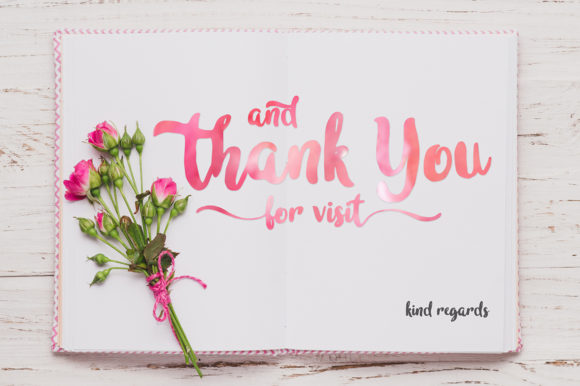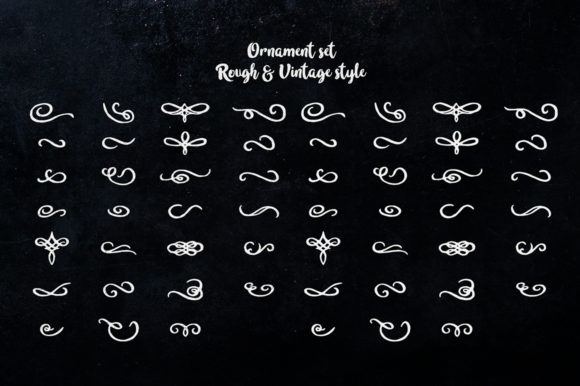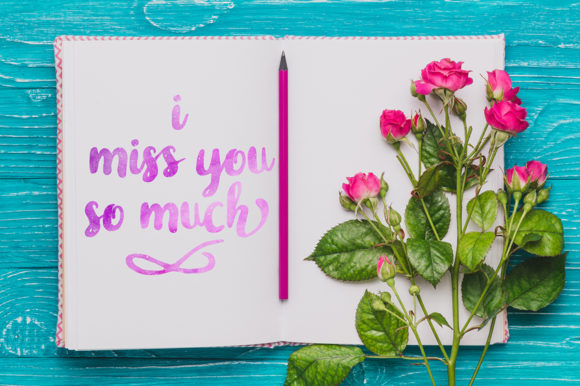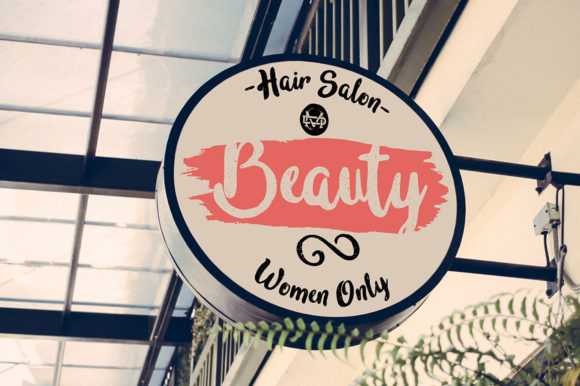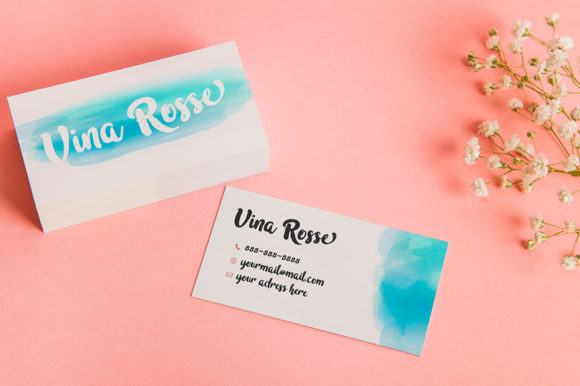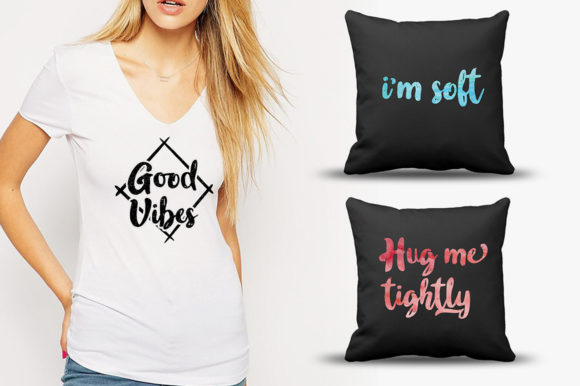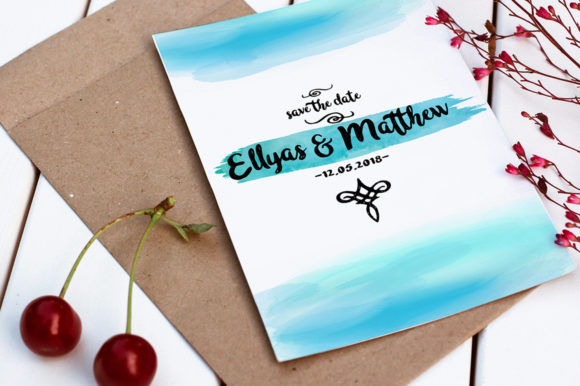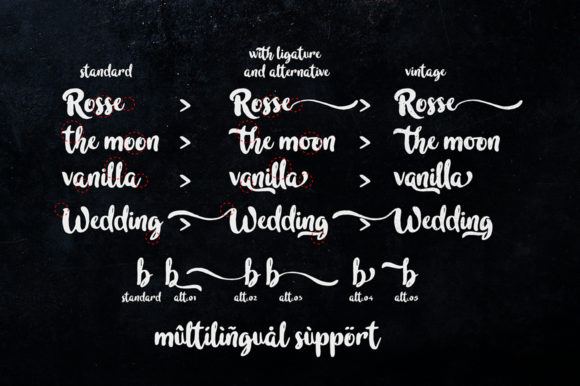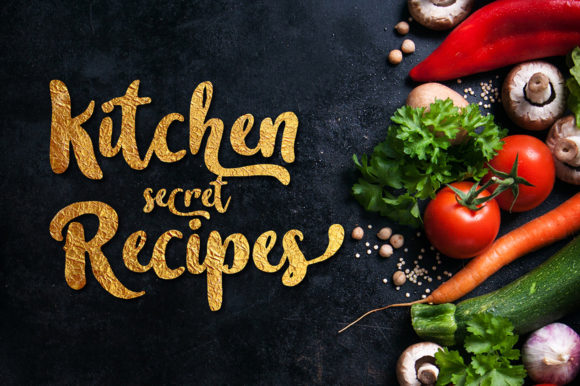
In Blossom Font
About In Blossom Font
In Blossom sounds like a beautiful and elegant handwritten font that exudes a flowing and timeless charm. Its distinct style is sure to captivate your creative spirit, and its versatility allows it to shine in various projects. Let’s explore some exciting ways to use In Blossom and create spectacular designs:
1. Wedding Invitations: Design stunning and romantic wedding invitations using In Blossom’s elegant touch, setting the tone for a dreamy celebration.
2. Greeting Cards: Create heartwarming greeting cards for various occasions, expressing sentiments with a touch of sophistication.
3. Brand Logos: Utilize In Blossom to design elegant and memorable logos that evoke a sense of timeless beauty for businesses and brands.
4. Art Prints: Create exquisite art prints featuring inspiring quotes or delicate floral illustrations using In Blossom’s flowing lettering.
5. Book Covers: Apply In Blossom’s elegant style on book covers, adding a touch of sophistication to the literary world.
6. Inspirational Quotes: Design captivating graphics with In Blossom to showcase motivational and uplifting quotes on social media or home decor.
7. Product Packaging: Use In Blossom’s elegant touch to design product labels and packaging, leaving a lasting impression on customers.
8. Bridal Shower Decor: Create elegant decorations and signage for bridal showers, making the event even more enchanting.
9. Custom Stationery: Design personalized stationery sets with In Blossom’s flowing handwritten font, making correspondence feel extra special.
10. Journal Covers: Apply In Blossom to design journal covers, inviting creativity and introspection with its timeless allure.
11. Floral Illustrations: Combine In Blossom with delicate floral illustrations to create stunning compositions that evoke beauty and grace.
12. Website Headings: Utilize In Blossom for website headings and titles, giving a touch of elegance and sophistication to online content.
13. Social Media Graphics: Create eye-catching social media graphics with In Blossom’s flowing lettering, attracting attention to your posts.
14. Calligraphic Art: Use In Blossom’s elegant touch in calligraphic art, expressing emotions and sentiments through artistic lettering.
15. Personalized Gifts: Design personalized gifts, such as mugs or photo frames, with In Blossom’s elegant lettering for a heartfelt touch.
16. Event Programs: Apply In Blossom in designing elegant event programs, enhancing the overall aesthetic of special occasions.
17. Menu Cards: Create sophisticated menu cards with In Blossom’s flowing lettering, elevating the dining experience.
18. Artistic Quotes: Use In Blossom to create visually appealing quotes for home decor or inspirational artwork.
19. DIY Crafts: Apply In Blossom in DIY craft projects like handmade cards, scrapbooking, or gift tags for a touch of elegance.
20. Elegant Apparel Designs: Use In Blossom to design elegant apparel graphics that reflect a timeless and sophisticated style.
In conclusion, In Blossom is a flowing handwritten font that embraces an elegant touch, making it perfect for a wide range of projects. From wedding invitations to social media graphics, from art prints to product packaging, In Blossom’s distinct and timeless style will elevate your designs and leave a lasting impression. Embrace the elegance and versatility of In Blossom to bring sophistication and beauty to your favorite projects, and let your creativity blossom with its flowing and timeless charm. Remember, the possibilities are endless, so explore and discover the magic of In Blossom in your creative journey!